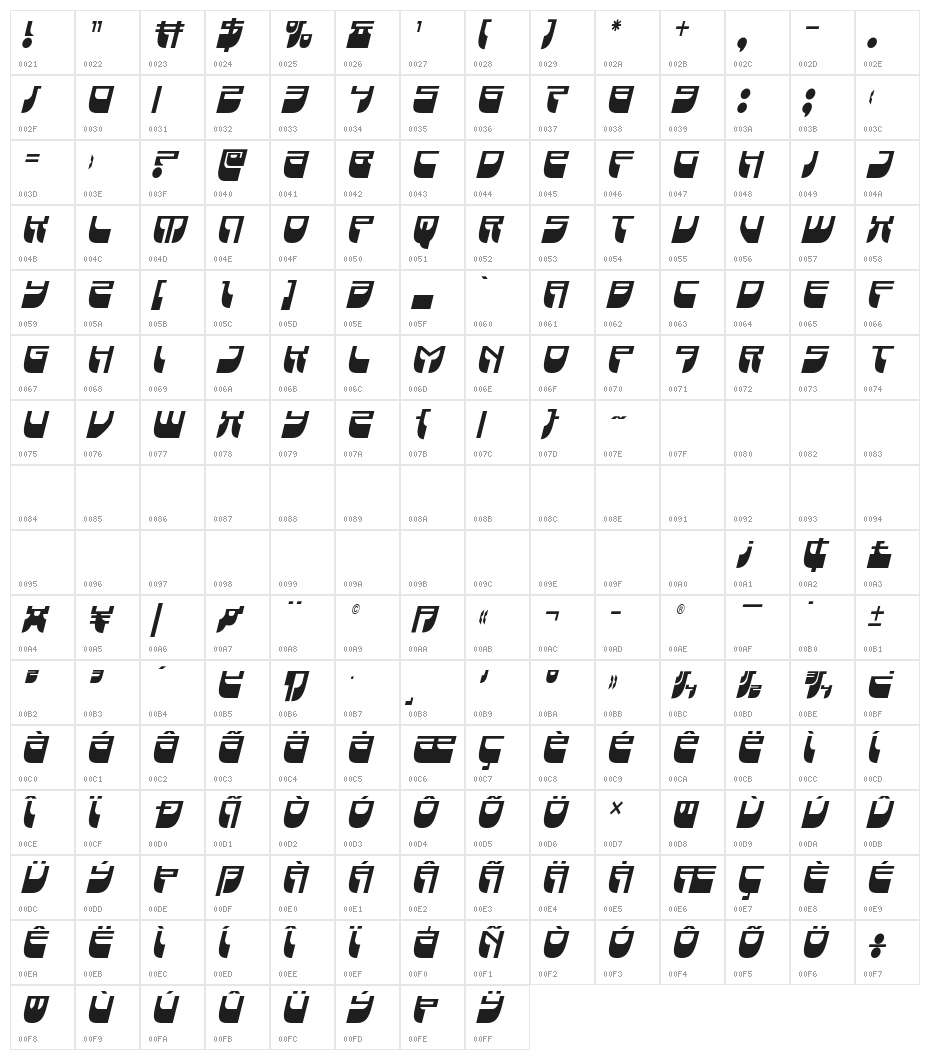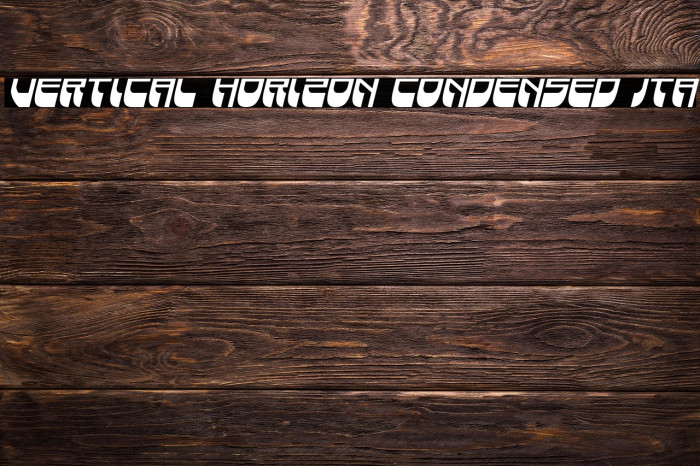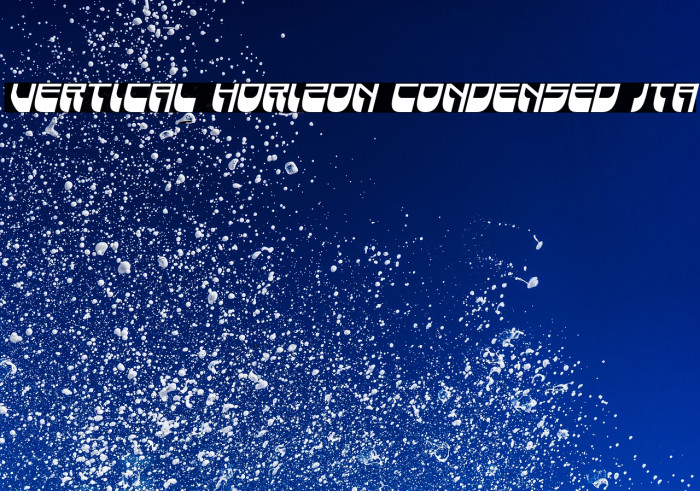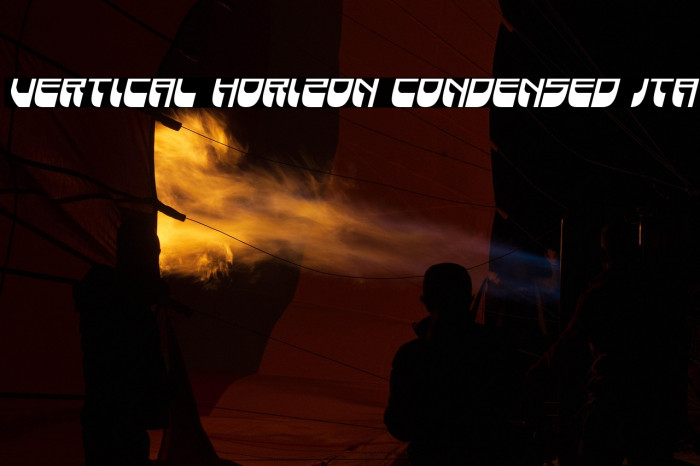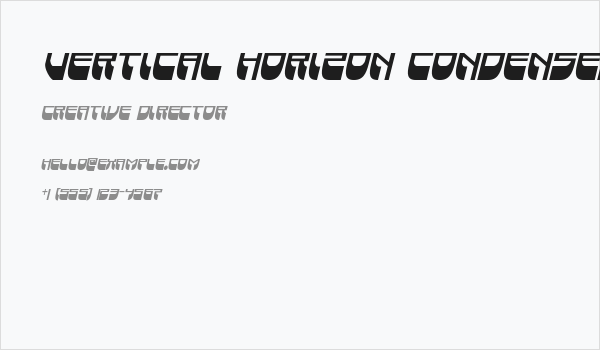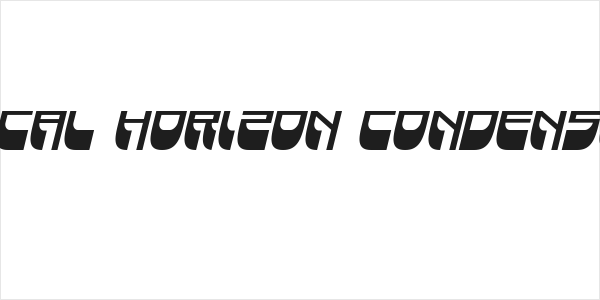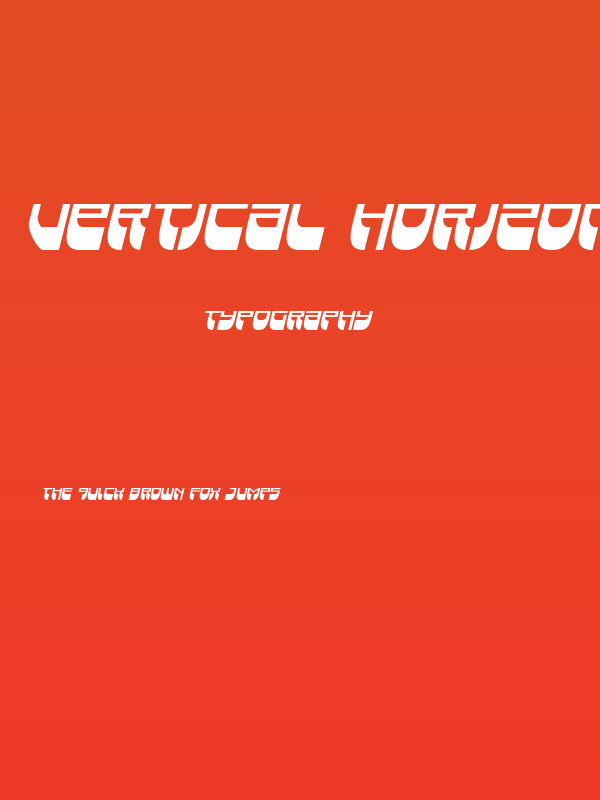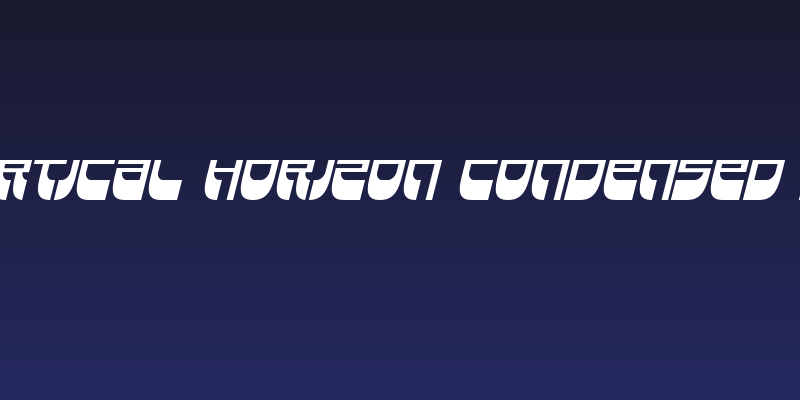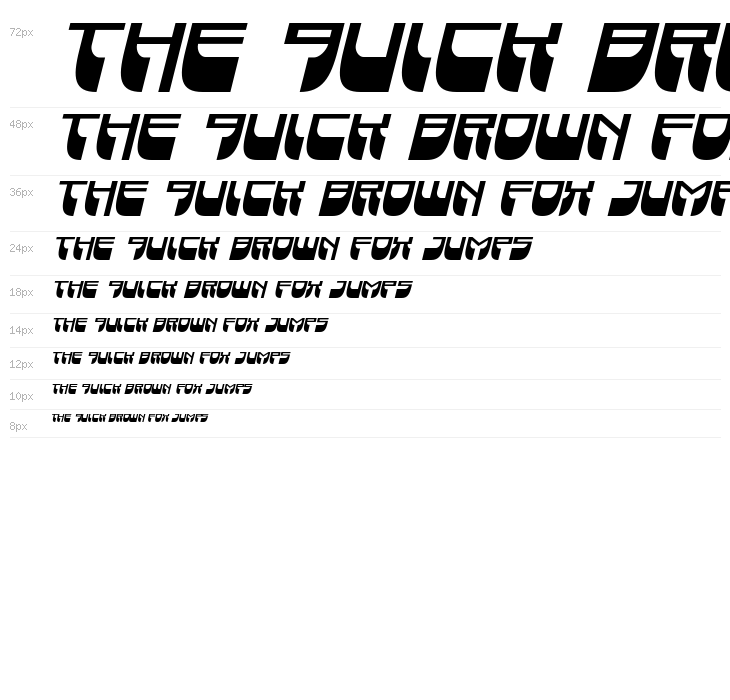
Vertical Horizon Condensed Ita Font
Vertical Horizon Condensed Ita Description
This font features a futuristic and bold design with a condensed and italicized style. The characters are uniquely shaped with sharp angles and smooth curves, creating a dynamic and energetic appearance. The uppercase and lowercase letters maintain a consistent width, contributing to a uniform look. The numbers and special characters are designed with the same bold and angular aesthetic, ensuring cohesion across all elements. This font's distinct style makes it stand out, perfect for projects that require a modern and edgy feel.
| Proposed Projects | Ideal for sci-fi themed designs, technology branding, video game titles, and modern advertising campaigns. |